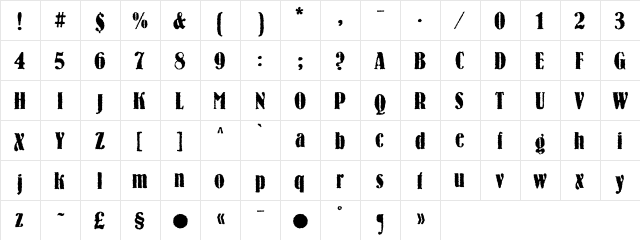
BernhardRoughC Regular
Design Context for BernhardRoughC Typeface
BernhardRoughC embraces imperfection — its rough, textured character adds raw authenticity to designs that want to feel lived-in and unconventional.
A strong fit for alternative music projects, graffiti-adjacent design, and anything that deliberately resists polish.
Pro Tip: Use BernhardRoughC at larger sizes where the texture and irregularity of each letterform can be clearly seen — it loses its character at small sizes.